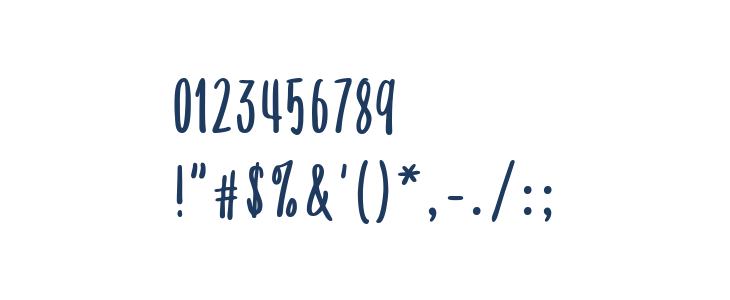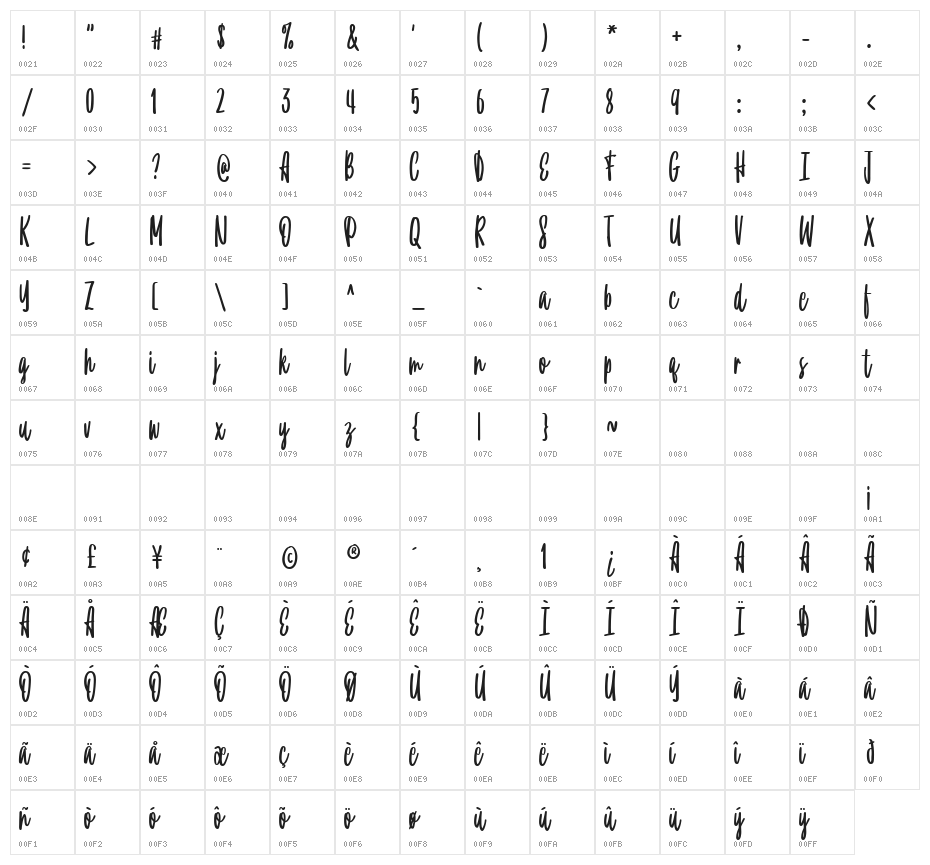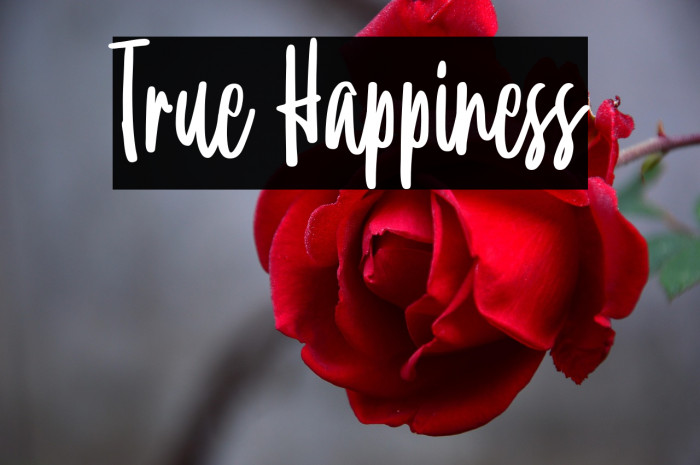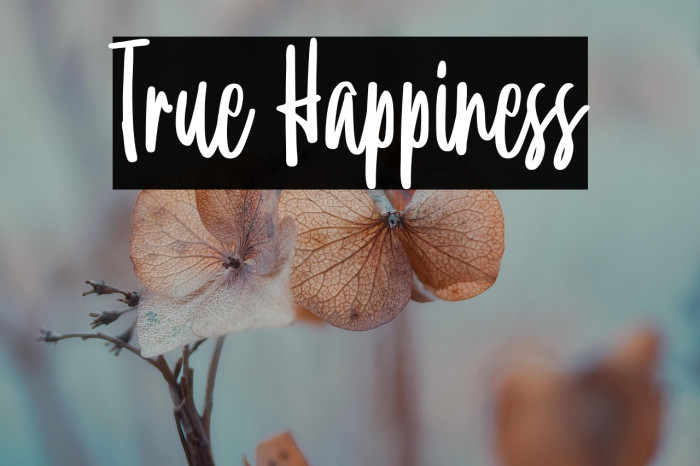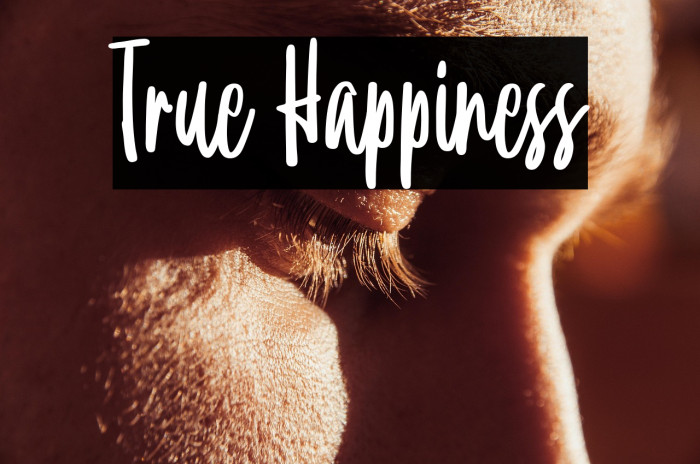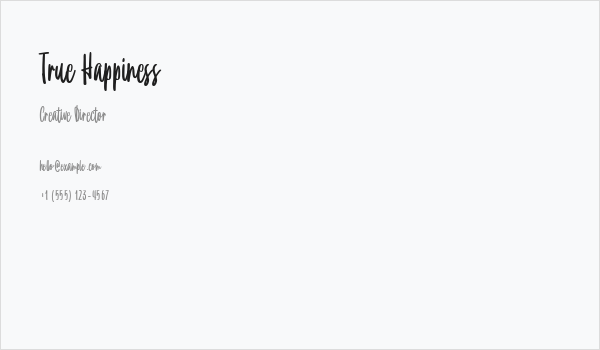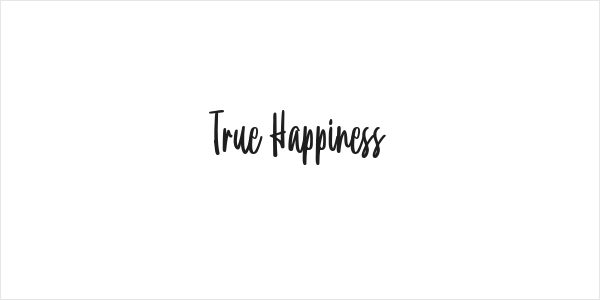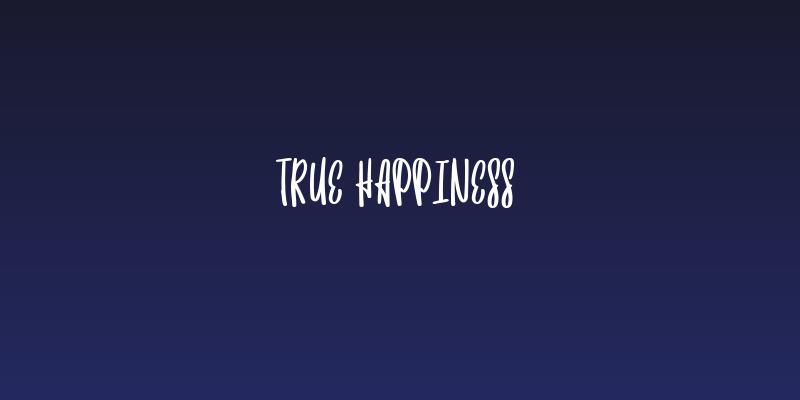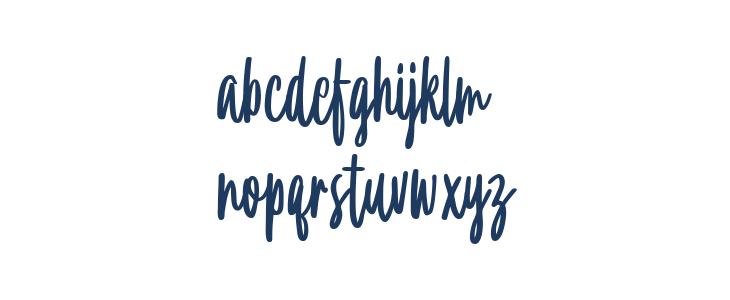
True Happiness Font
True Happiness Description
This font features a playful and energetic handwritten style, characterized by its tall, narrow letterforms and slightly irregular strokes. The uppercase letters are bold and dynamic, with a consistent vertical alignment that adds to its lively appearance. The lowercase letters maintain the same spirited feel, with a slightly more relaxed flow. Numbers and special characters are crafted with the same attention to detail, ensuring a cohesive look across all elements. The font's overall aesthetic is casual and friendly, making it ideal for projects that require a personal touch.
| Use Case | Headlines, Logos, Social Media |
| Proposed Projects | Ideal for greeting cards, playful branding, social media graphics, and children's book covers. |